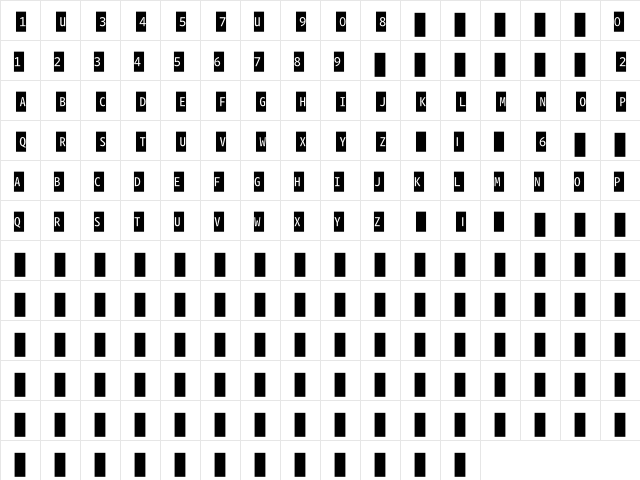
WhitneyIndexBlack SquareLt2 Font Preview
WhitneyIndexBlack SquareLt2
Design Context for WhitneyIndexBlack Typeface
WhitneyIndexBlack offers clean, dependable letterforms without strong stylistic allegiance, making it a practical choice for designers who need flexibility.